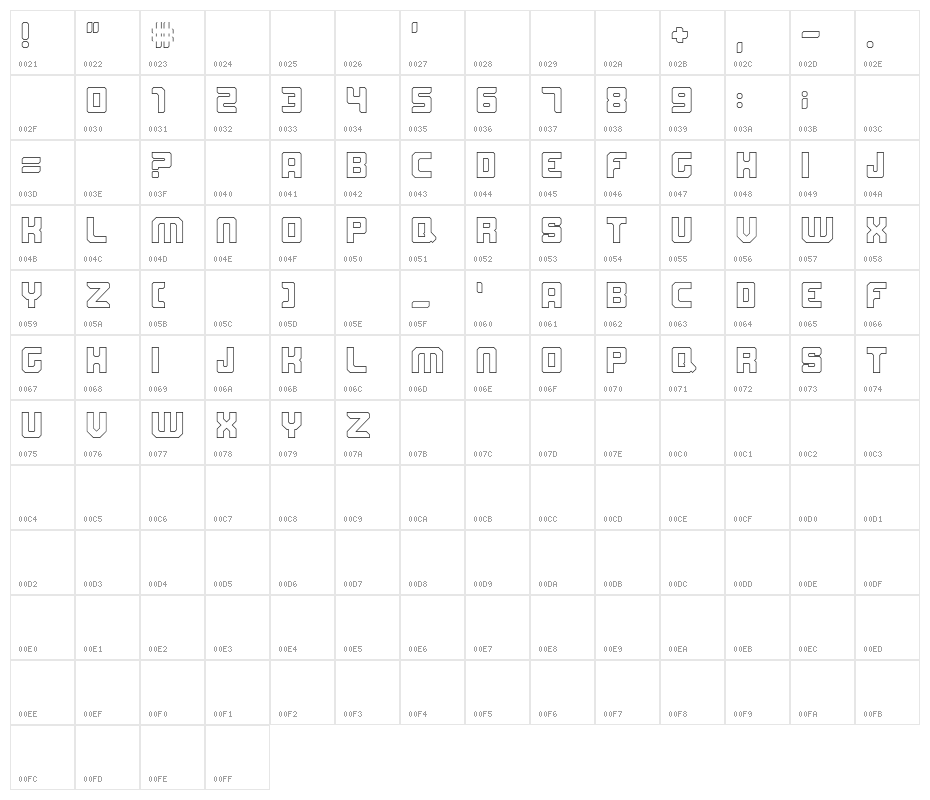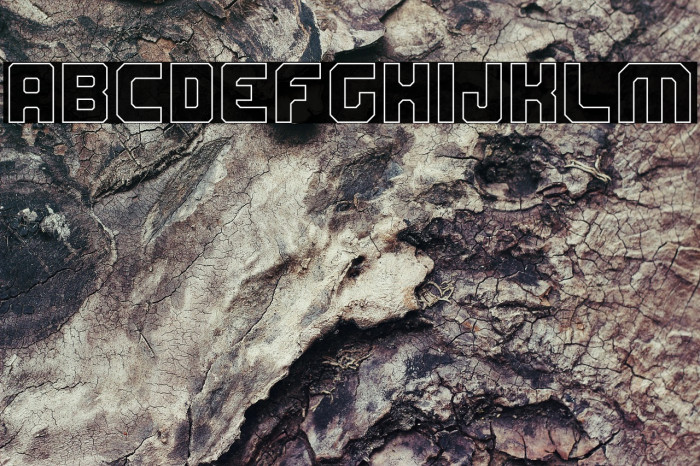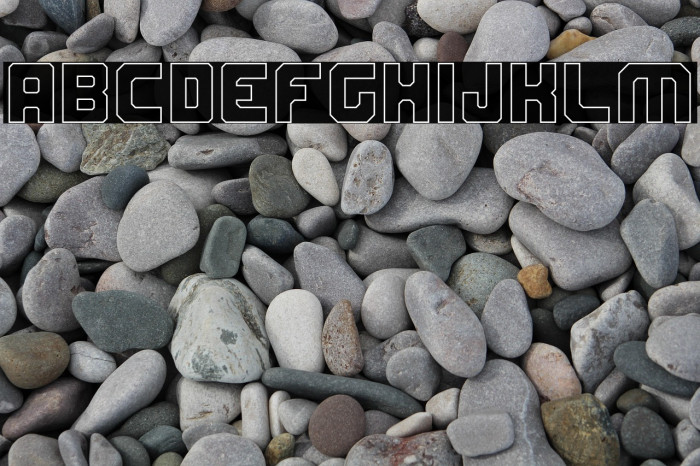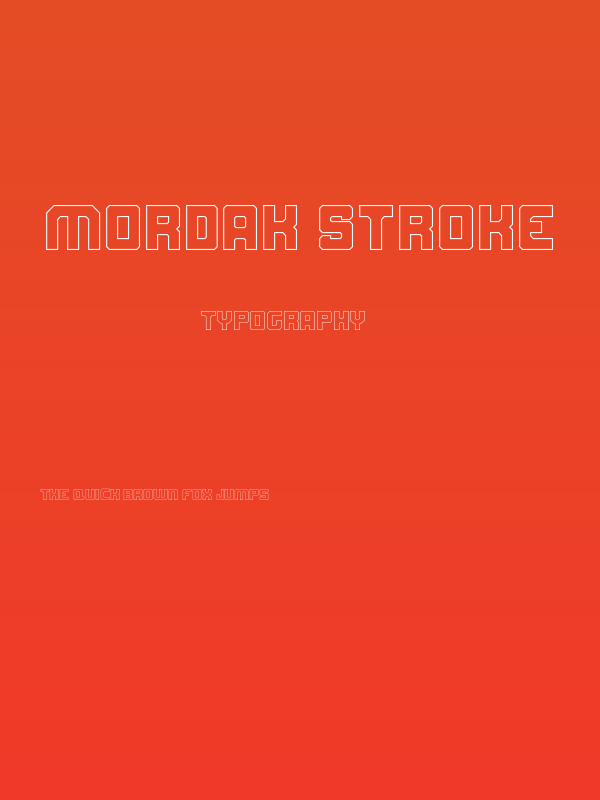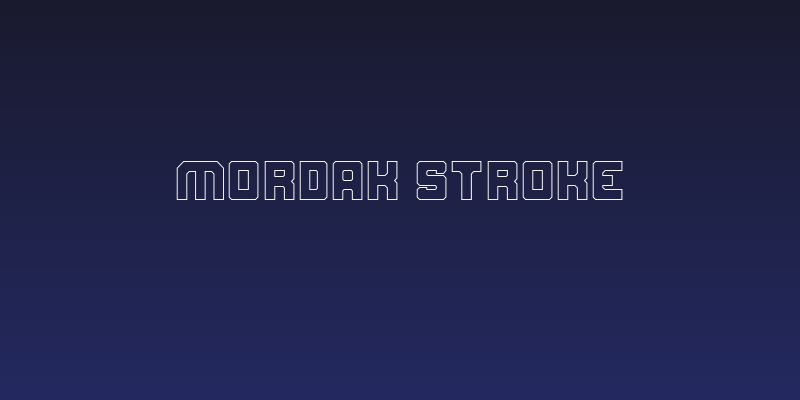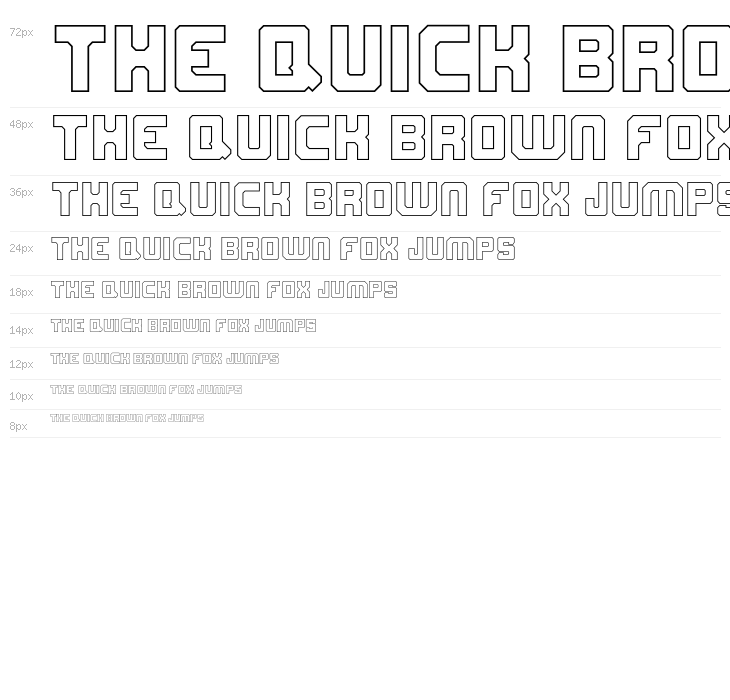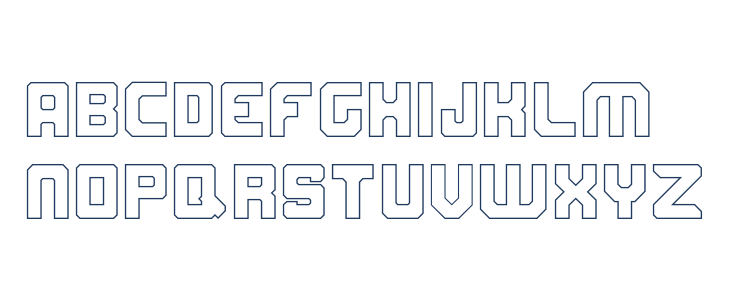
Mordak Stroke Font
Mordak Stroke Description
This font features a bold, geometric design with a distinct outline style. Each character is crafted with sharp angles and straight lines, giving it a futuristic and industrial feel. The uppercase and lowercase letters maintain a consistent height, enhancing its uniform appearance. The numerals and special characters follow the same design principles, ensuring a cohesive look across all elements. The font's outline nature makes it suitable for layering and creating dynamic visual effects. Its unique style is eye-catching and ideal for projects that require a modern, tech-inspired aesthetic.
| Proposed Projects | Ideal for tech-themed posters, video game graphics, futuristic branding, and digital artwork. |